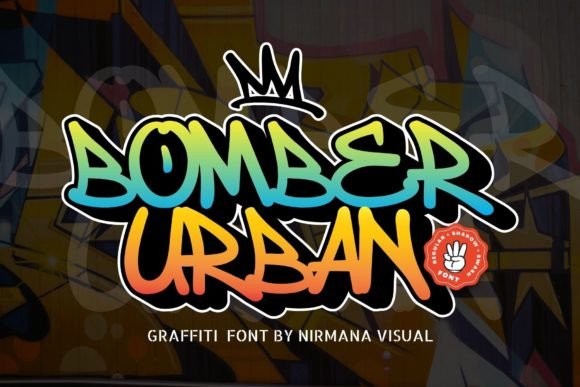
Prepare to witness a lettering spectacle unlike any other! Bomber Urban Font, a display font family, shatters the boundaries of conventional typography, igniting a creative revolution with its daring design. This font is more than just a collection of characters; it's an artistic masterpiece, masterfully crafted by the visionary Sigit Dwipa.
Bomber Urban Font is a visual symphony that captivates the essence of street art, capturing the raw energy of graffiti and the rebellious spirit of urban culture. Its sharp angles and dripping paint effects pay homage to the vibrant world of street artists, transforming your designs into striking works of art.
Embark on a typographic adventure with Bomber Urban Font, and watch as your designs take on a life of their own. Whether it's a striking logo, a captivating poster, or a personalized greeting card, this font commands attention, leaving an indelible mark on the minds of your audience.
Unleash your creative potential and let Bomber Urban Font guide you on a journey of artistic expression. Its bold and edgy style is the perfect canvas for your imagination, allowing you to create designs that resonate with the rebellious spirit of urban culture.
Join the movement, embrace the power of Bomber Urban Font, and transform your designs into works of art that speak volumes. Let your creations echo the vibrant pulse of street art, captivating your audience with every stroke.